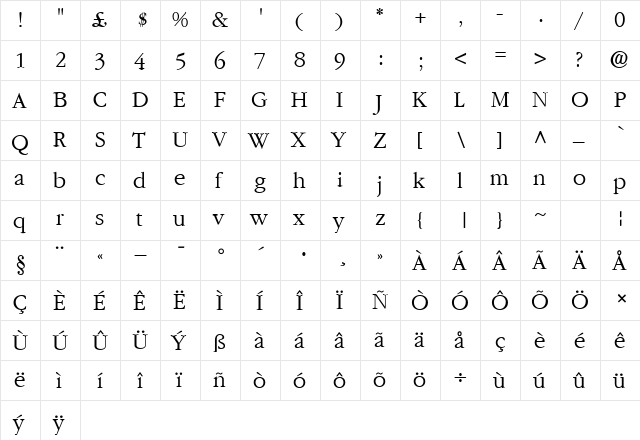
Skt Garland Regular Font Preview
Skt Garland Regular
Skt Garland Regular Font Details
| Designer | Diacritical marks added by Bhikkhu Pesala. |
Design Context for Skt Garland Typeface
Skt Garland takes a measured approach to typography — its balanced proportions and neutral character make it a reliable workhorse for both digital and print work.